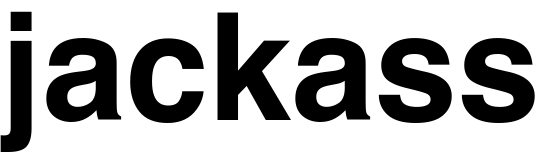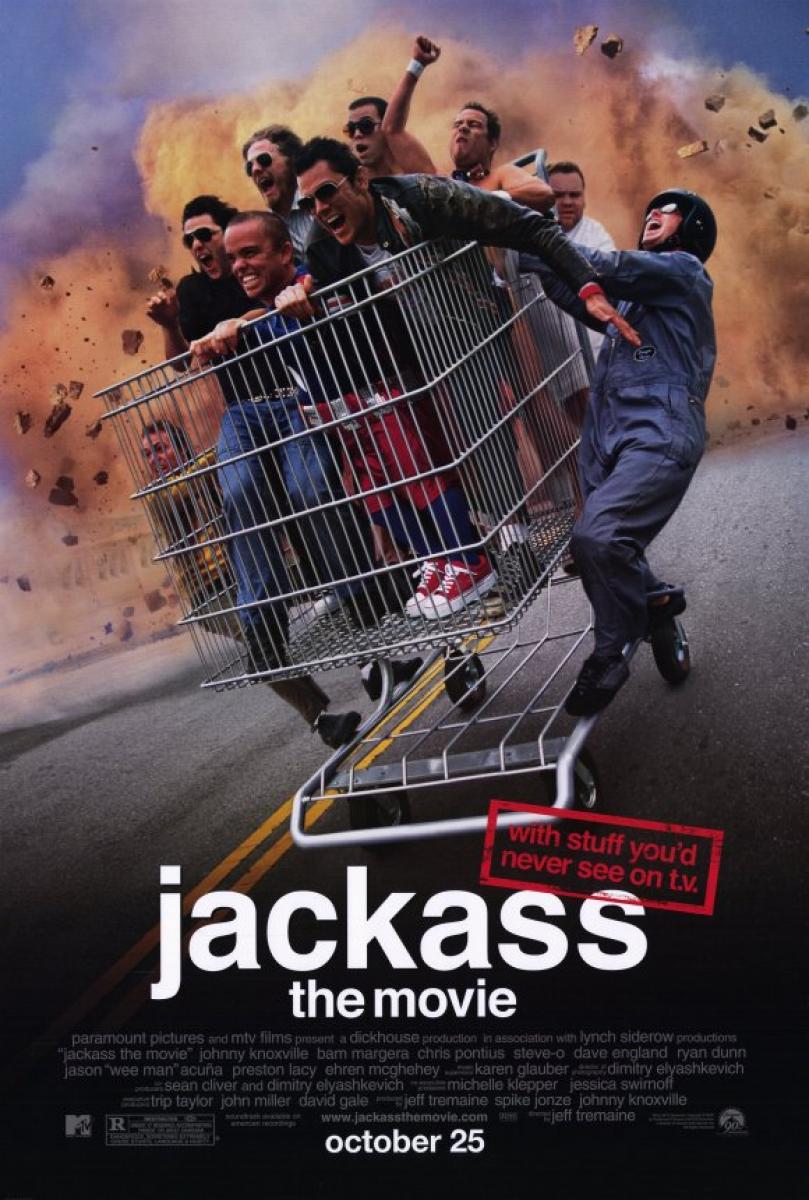
Jackass Font
ComedyJackass: The Movie is a series of American reality comedy films created by Johnny Knoxville, Spike Jonze, and Jeff Tremaine. The franchise began in 2000 with the MTV series Jackass, which featured a group of friends performing various stunts and pranks on each other.
The poster for the film features the Helvetica Bold typeface for the title. Helvetica is a popular neo-grotesque sans-serif font created in 1957 by Swiss designers Max Miedinger and Eduard Hoffmann.